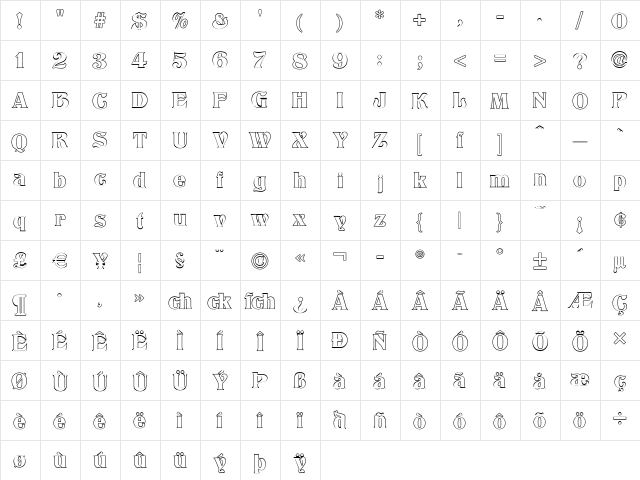
Titania Outline Regular
Design Context for Titania Outline Typeface
Titania Outline is built around its visual character rather than neutral utility — its distinctive forms are designed to make an impression at display sizes.
Font Pairing: Pair with a clean neutral sans-serif for body copy to let Titania Outline's character lead without overwhelming the composition.
Pro Tip: Use Titania Outline exclusively at display sizes — it was designed to be seen, not read at length. Let a neutral companion handle body copy.